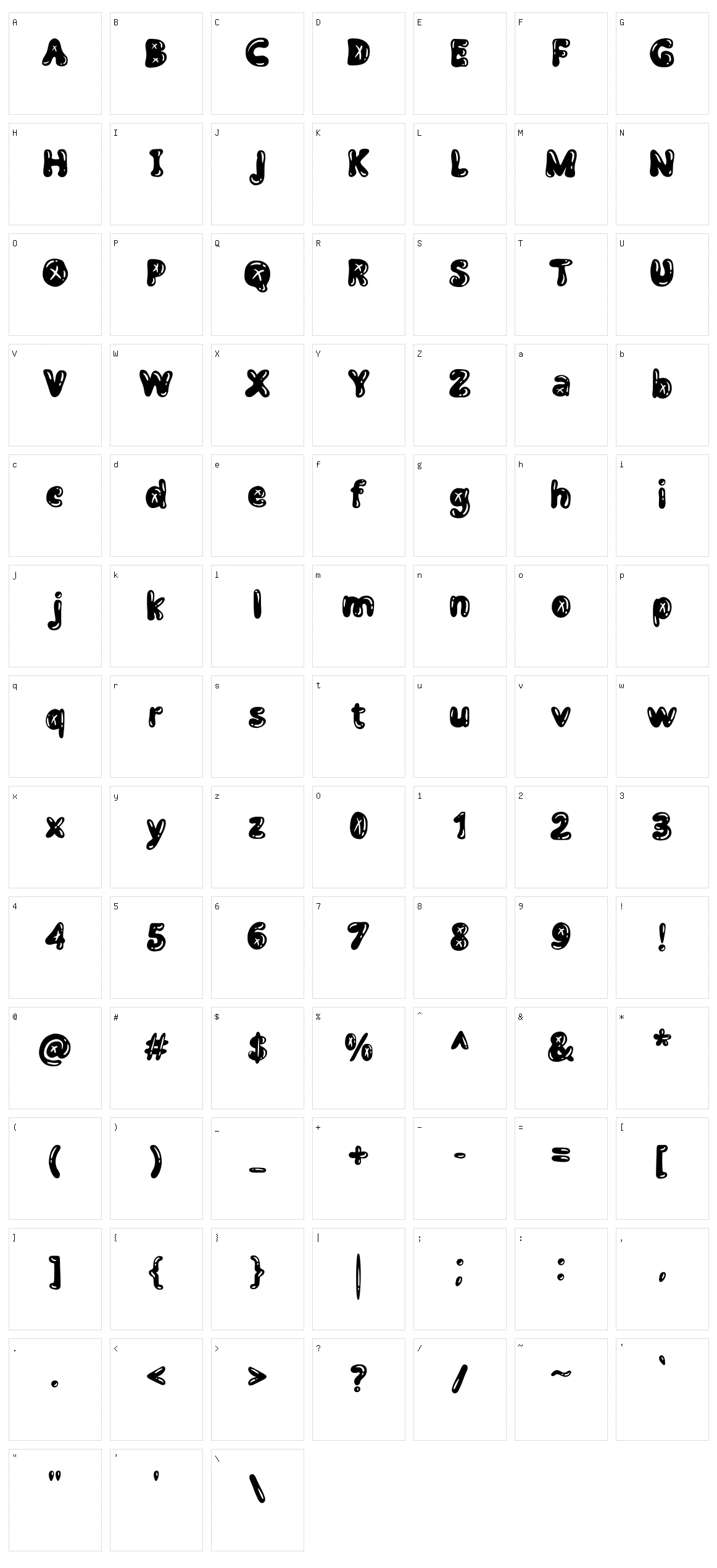
The free font Black Bubbles is carefully designed by Satire Artwork, showcasing a thoughtful balance of creativity and usability and falls under the Groovy font style. When you download the ZIP file, it contains only 23.2 KB of font files, making it lightweight and quick to download. Please review the license details below to understand permitted usage and distribution rights. If license information is not available, we recommend using this font for personal projects only or contacting the author directly for commercial usage permissions.